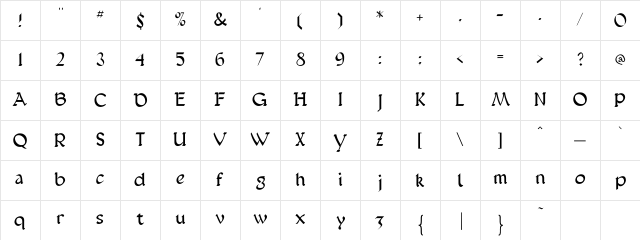
Thame Regular
Design Context for Thame
Thame is a composed and adaptable typeface that performs quietly and consistently across a wide range of design contexts.